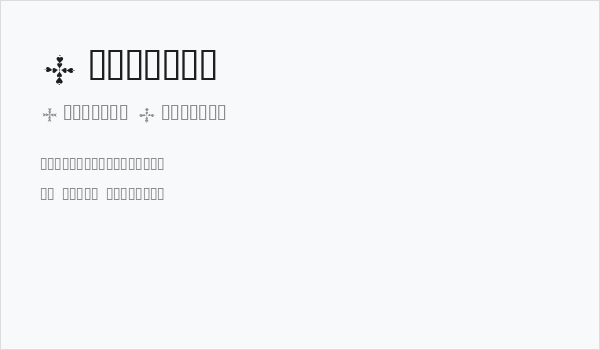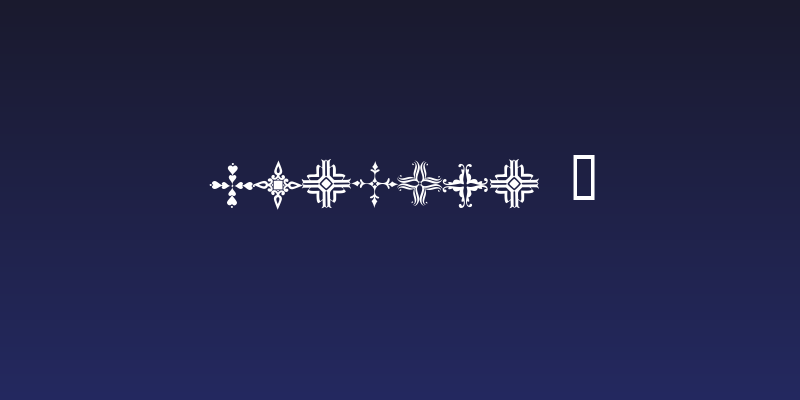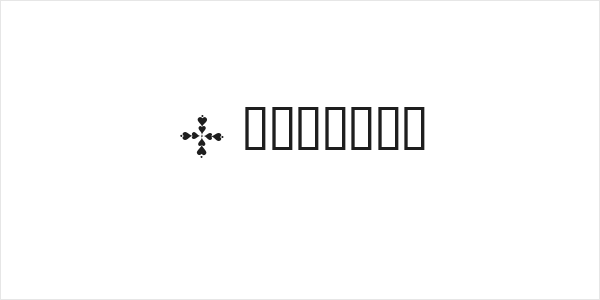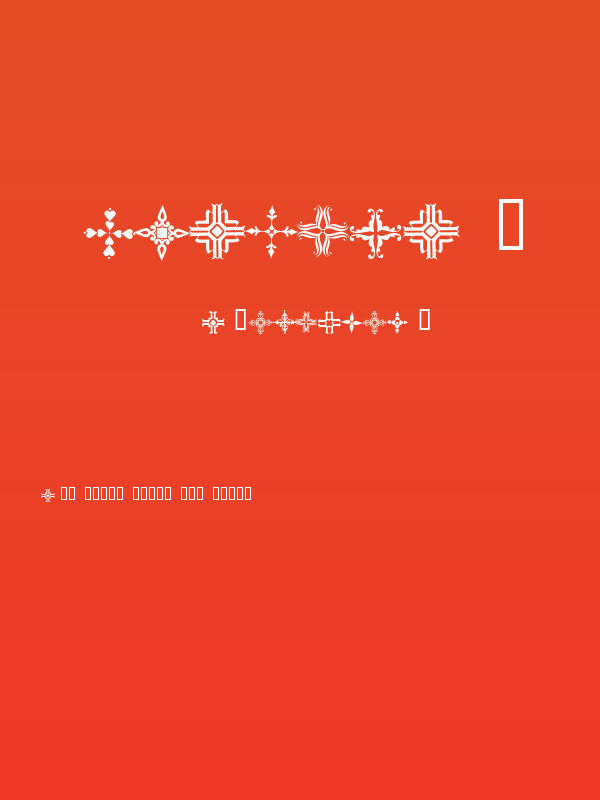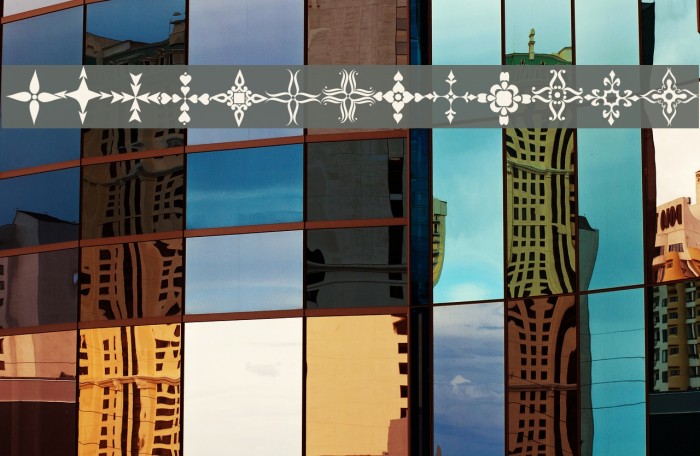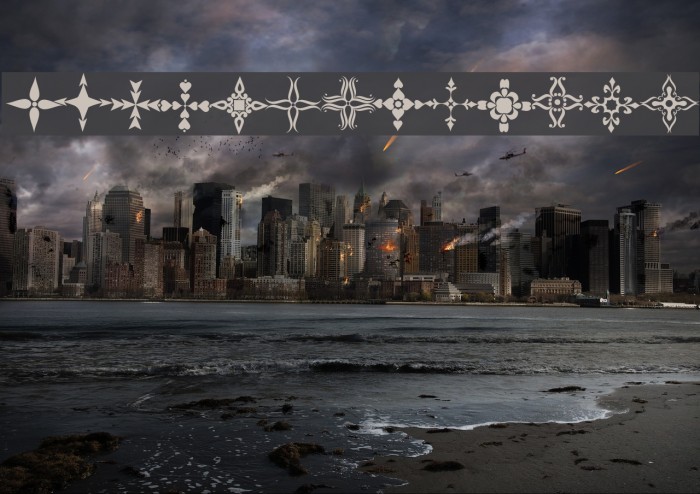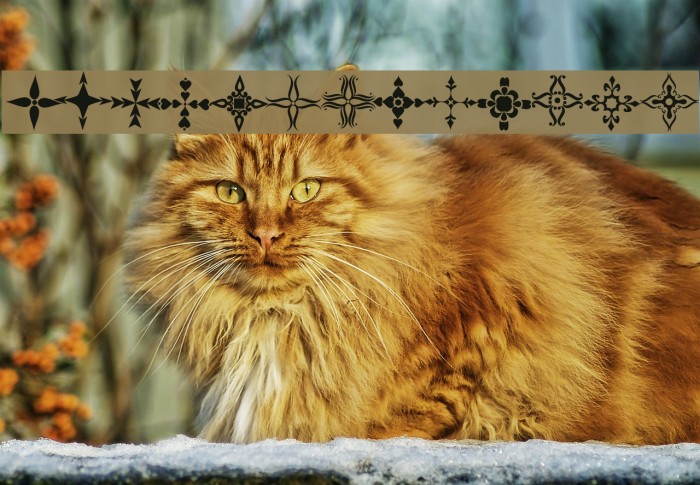
Designs3 Font
Designs3 Description
Highly decorative and intricate ornamental glyphs featuring symmetrical, floral, and geometric motifs, designed for use as borders, dividers, or embellishments rather than standard text.
| Overall Style | Decorative, Vintage |
| Use Case | Borders, Dividers, Decorative elements |
| Proposed Projects | Invitations, certificates, decorative borders, vintage packaging, book covers, ornamental dividers. |